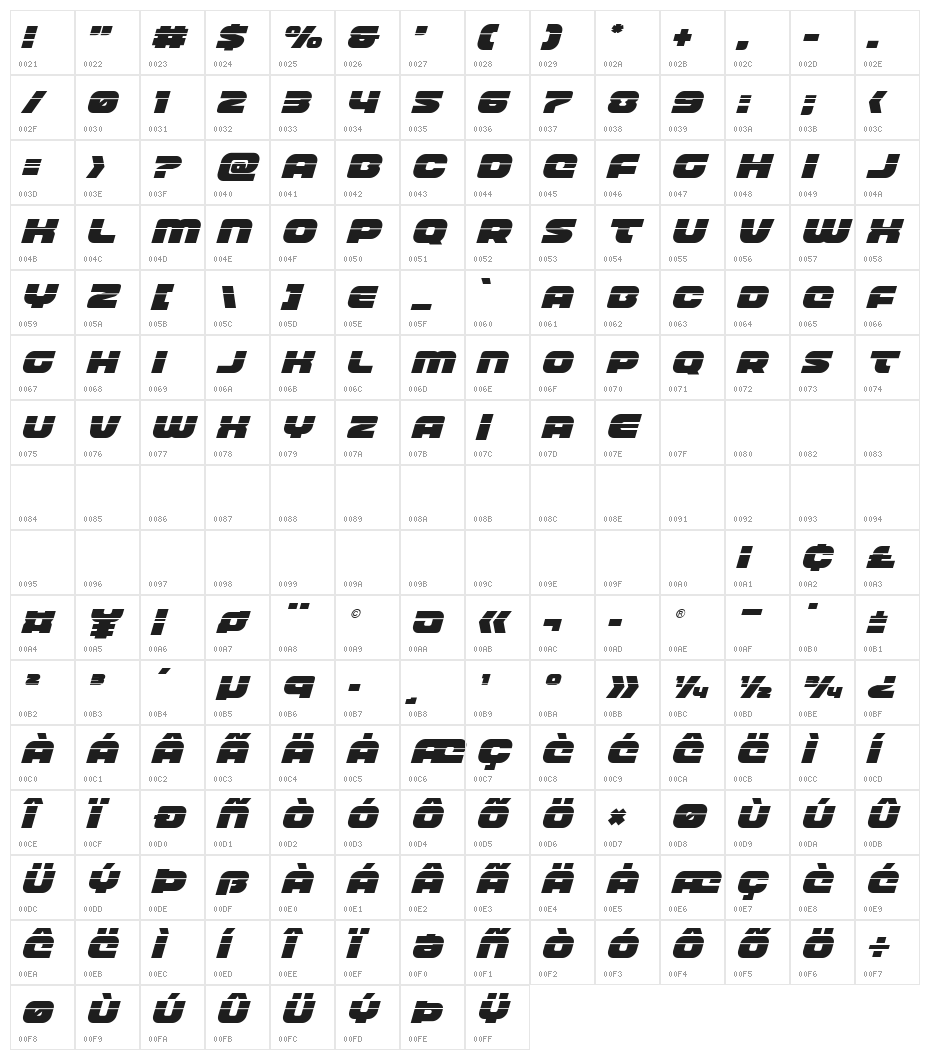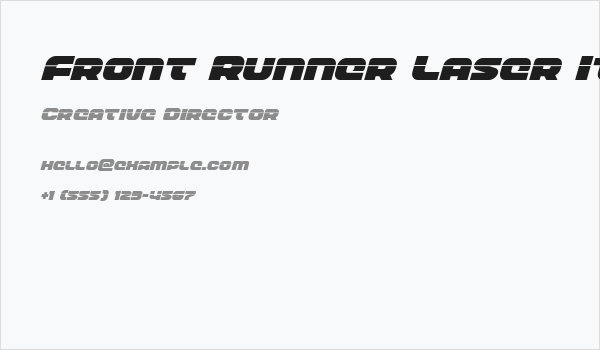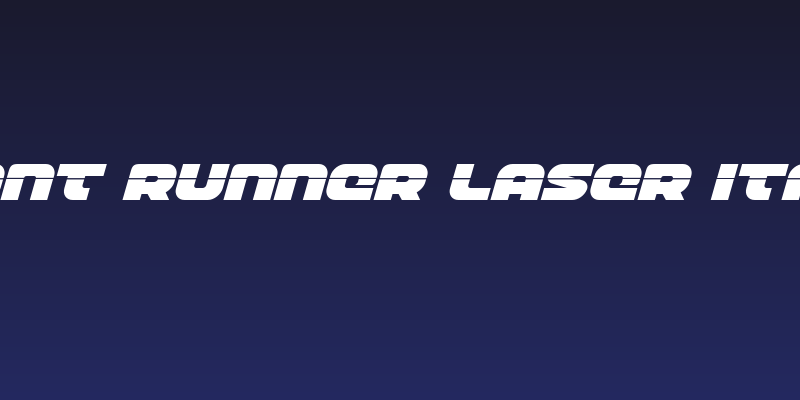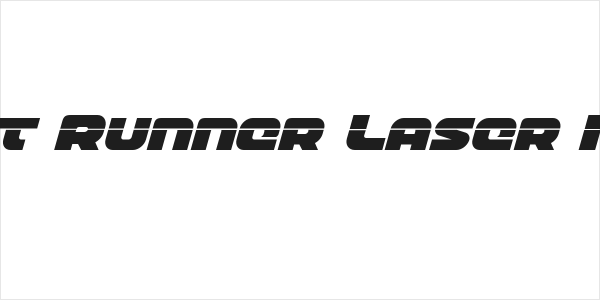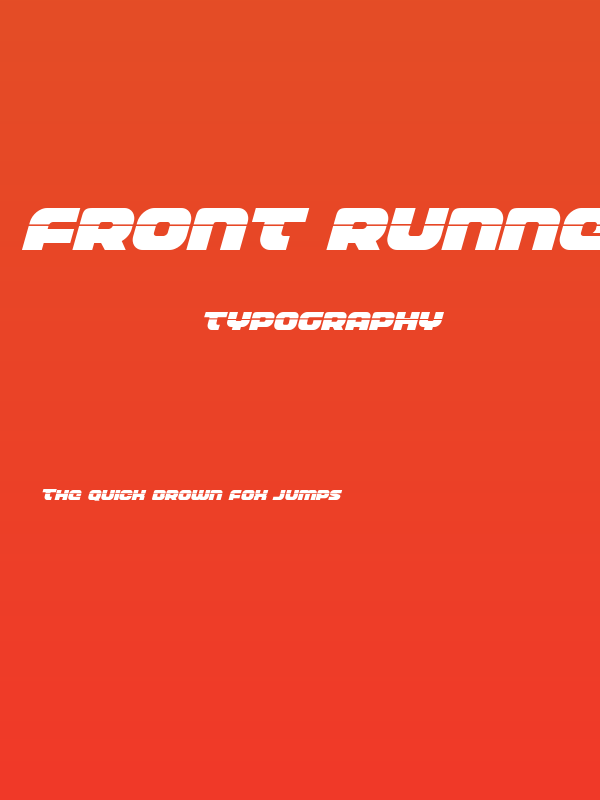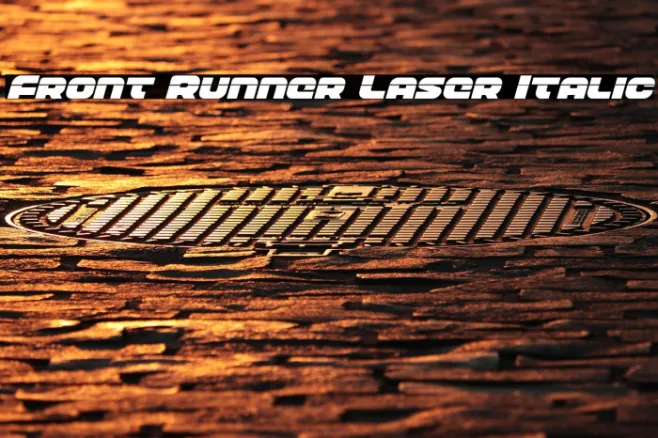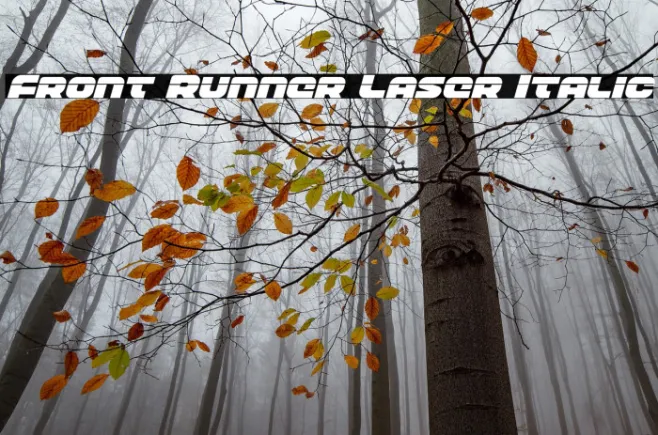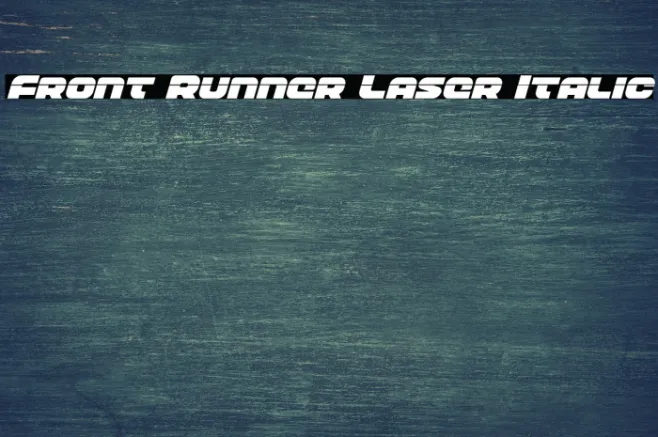
Front Runner Laser Italic Font
Front Runner Laser Italic Description
This font features a bold, futuristic design with a distinct italic slant, giving it a dynamic and forward-moving appearance. The characters are wide and blocky, with sharp angles and a consistent stroke width that conveys strength and modernity. The uppercase and lowercase letters maintain a uniform style, while the numerals and special characters complement the overall aesthetic. The font's geometric structure and clean lines make it suitable for attention-grabbing designs.
| Proposed Projects | Ideal for sci-fi themed designs, technology branding, video game titles, and dynamic posters. |